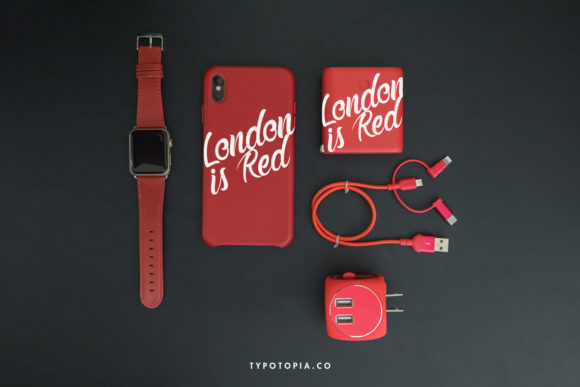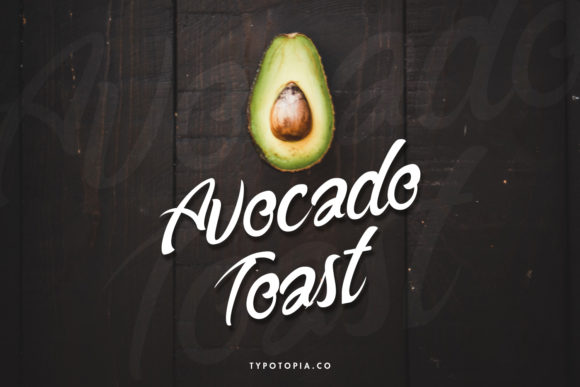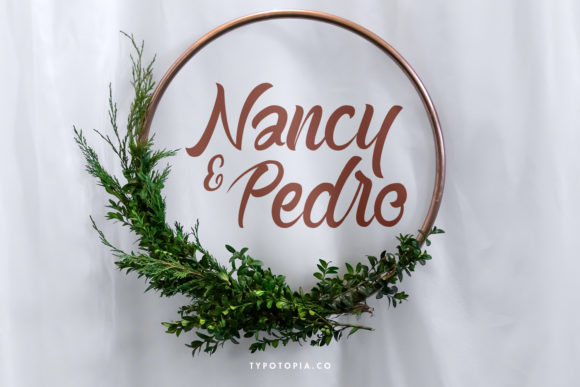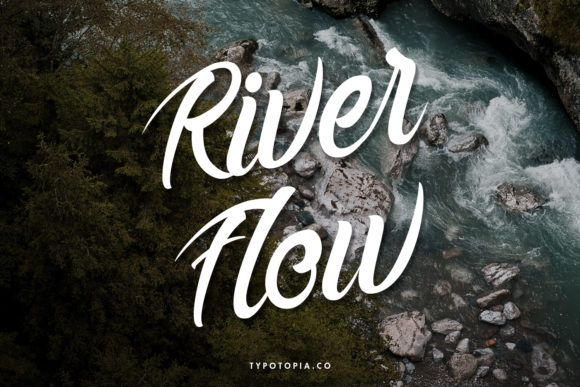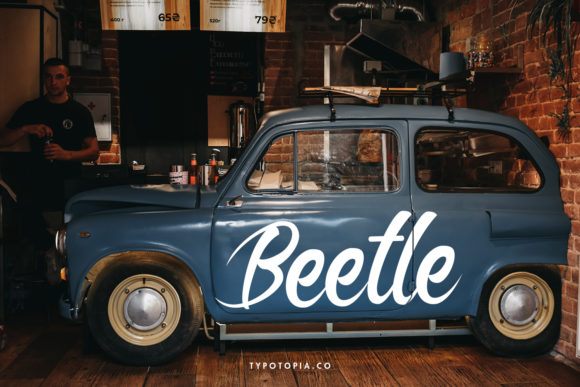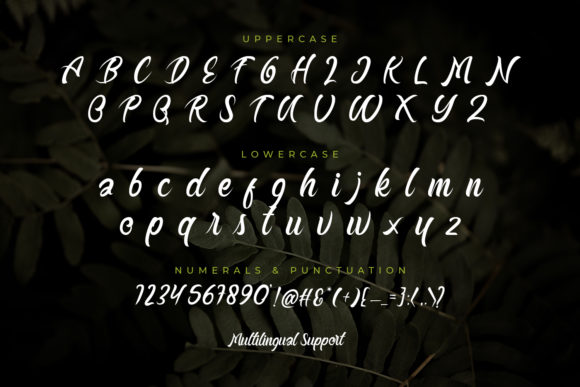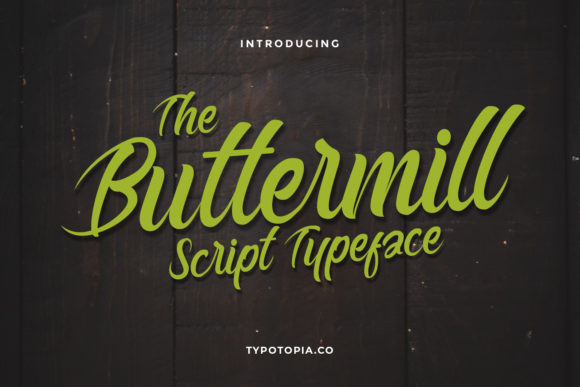
Discover the Elegance of Buttermill Font: A Timeless Choice for Designers and Crafters
Are you on the hunt for a font that exudes elegance and sophistication? Look no further than the Buttermill Font, a stunning handwritten typeface that is sure to capture your heart. With its flowing lines and classic charm, this font is perfect for designers and crafters seeking to add a touch of refinement to their projects.
The Characteristics of Buttermill Font
Buttermill Font is a flowing handwritten font that boasts an elegant touch, making it an excellent choice for a wide range of design applications. Its incredibly distinct and timeless style sets it apart from other fonts, ensuring that your designs will stand out from the crowd.
One of the key features of Buttermill Font is its smooth, cursive flow. The letters glide effortlessly across the page, creating a sense of movement and fluidity that is both visually appealing and engaging. This font is perfect for creating designs that require a personal touch, such as wedding invitations, branding materials, and packaging.
The Benefits of Using Buttermill Font
So, why should you choose Buttermill Font for your next project? Here are just a few benefits of using this exceptional typeface:
- Elegance and sophistication: Buttermill Font exudes refinement and poise, making it perfect for high-end designs and luxury brands.
- Timeless style: This font’s classic charm ensures that it will remain stylish and relevant for years to come.
- Versatility: Buttermill Font can be used for a wide range of design applications, from digital projects to print materials.
- Easy to read: The flowing lines and clear letterforms make Buttermill Font easy to read, even at small sizes.
How to Use Buttermill Font in Your Designs
Buttermill Font is an incredibly versatile typeface that can be used in a variety of design applications. Here are a few ideas to get you started:
- Wedding invitations and stationery: Add a touch of elegance to your wedding designs with Buttermill Font.
- Branding and packaging: Use Buttermill Font to create luxurious branding materials and packaging that exude refinement and sophistication.
- Digital designs: Buttermill Font is perfect for digital projects, such as website headers, social media graphics, and email marketing campaigns.
- Crafting and DIY projects: Add a personal touch to your crafting and DIY projects with Buttermill Font, perfect for making handmade cards, gift tags, and more.
Tips for Pairing Buttermill Font with Other Fonts
When pairing Buttermill Font with other fonts, it’s essential to choose typefaces that complement its elegant and sophisticated style. Here are a few tips to keep in mind:
- Pair with a clean sans-serif font: A clean sans-serif font, such as Arial or Helvetica, provides a nice contrast to the flowing lines of Buttermill Font.
- Use a serif font for headings: A serif font, such as Times New Roman or Georgia, can add a touch of sophistication to your headings and titles.
- Experiment with script fonts: Buttermill Font pairs beautifully with other script fonts, such as Pacifico or Great Vibes.
In conclusion, Buttermill Font is a timeless and elegant typeface that is perfect for designers and crafters seeking to add a touch of refinement to their projects. With its flowing lines, classic charm, and versatility, this font is sure to become a favorite in your design arsenal. So why wait? Fall in love with Buttermill Font and use it to create spectacular designs that will leave a lasting impression.